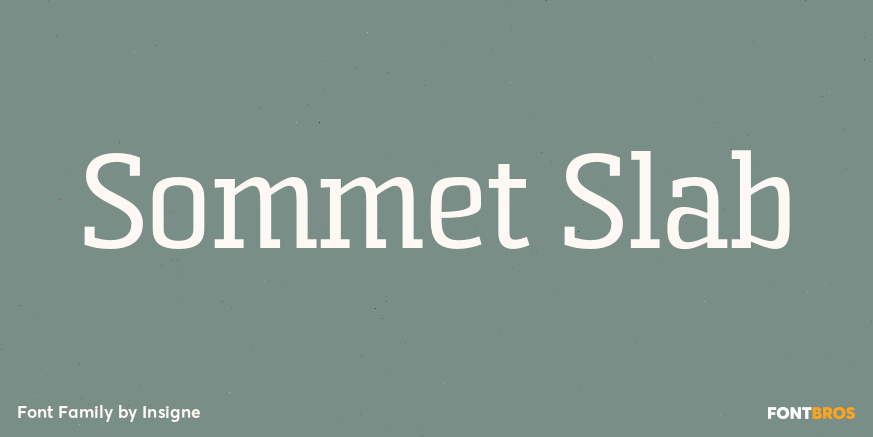
Sommet Slab
About Sommet Slab
The Sommet family of typefaces has been updated with a new slab serif variant. Expanding on Sommet\’s successful design principals, Sommet Slab is there when you need more impact and power. Sommet Slab is available with six weights and complementary italics…